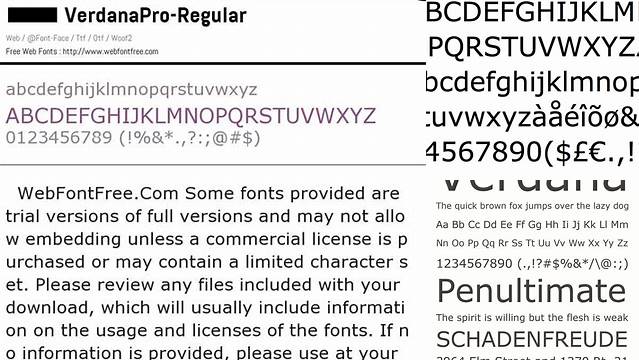
Verdana Pro Font: Usage, And Free Alternatives Explored
Are you looking to enhance your design projects with a versatile and readable font? Verdana Pro font might be exactly what you need. Known for its exceptional clarity and legibility, Verdana Pro has become a staple in various digital and print mediums. In this article, we'll dive deep into what makes Verdana Pro so special, explore its various applications, and provide guidance on where you can find it and explore free alternatives.
What Makes Verdana Pro Stand Out?
When it comes to font choices, Verdana Pro distinguishes itself through several key characteristics. Primarily, its design focuses on readability, making it an excellent choice for body text, user interfaces, and any context where clarity is paramount. The font features a large x-height, which enhances the recognition of lowercase letters, and its generous spacing prevents letters from crowding each other, even at smaller sizes. This careful attention to detail ensures that Verdana Pro remains legible across different screen resolutions and print qualities.
Moreover, Verdana Pro's versatility extends to its various weights and styles. The font family typically includes regular, italic, bold, and bold italic versions, providing designers with a range of options to emphasize text and create visual hierarchy. This adaptability makes it suitable for everything from formal documents and professional websites to engaging marketing materials and educational resources. Its clean, sans-serif design also contributes to its modern and approachable feel, which aligns well with contemporary design trends.
Another notable aspect of Verdana Pro is its extensive character set. It usually supports a wide array of characters, including accented letters, symbols, and numerals, making it usable in multiple languages and contexts. This comprehensive support ensures that designers can create consistent and professional-looking documents, regardless of the specific language or symbols required. Its design caters to both digital and print media, ensuring consistency across platforms, which is invaluable for maintaining brand identity and ensuring a seamless user experience.
Popular Uses of Verdana Pro
Verdana Pro's exceptional legibility and versatility have made it a favorite among designers and businesses across various industries. One of the most common applications is in website design, where its clarity makes it ideal for body text, navigation menus, and interactive elements. Many websites rely on Verdana Pro to ensure that their content is easily readable on different devices and screen sizes, thereby improving the overall user experience. Its clean, sans-serif appearance also aligns well with modern web design trends, making it a timeless choice for online communication.
In the realm of print media, Verdana Pro is frequently used in documents, reports, and brochures. Its readability at smaller sizes makes it perfect for lengthy texts, while its bold variations can be used to create eye-catching headlines and subheadings. Businesses often incorporate Verdana Pro into their branding materials to maintain a consistent and professional image across all platforms. Whether it's a formal business proposal or a marketing pamphlet, Verdana Pro helps ensure that the message is conveyed clearly and effectively.
Beyond websites and print, Verdana Pro is also widely used in user interfaces for software applications and operating systems. Its clarity and legibility make it an excellent choice for displaying menus, dialog boxes, and other interactive elements. Software developers often choose Verdana Pro to ensure that their applications are easy to use and accessible to a wide range of users. In this context, the font's ability to render well on different screen resolutions is particularly valuable, as it helps maintain a consistent user experience across various devices.
It's also worth noting that while Verdana Pro itself is a commercial font, there may be variations or similar fonts that are available for free or under open-source licenses. These alternatives can be a good option for personal projects or situations where budget constraints are a concern. However, keep in mind that free fonts may not offer the same level of quality, features, or support as commercial fonts. Therefore, it's essential to evaluate your specific needs and priorities before making a decision.
Verdana Pro font is a valuable asset for any designer or business aiming for clarity and professionalism in their communications. While it is a commercial font, understanding its features, applications, and licensing can help you make informed decisions about its use. If budget constraints are a concern, several free alternatives offer similar qualities, allowing you to achieve excellent results without incurring additional costs. By exploring these options, you can ensure that your design projects are both visually appealing and highly effective in conveying your message.